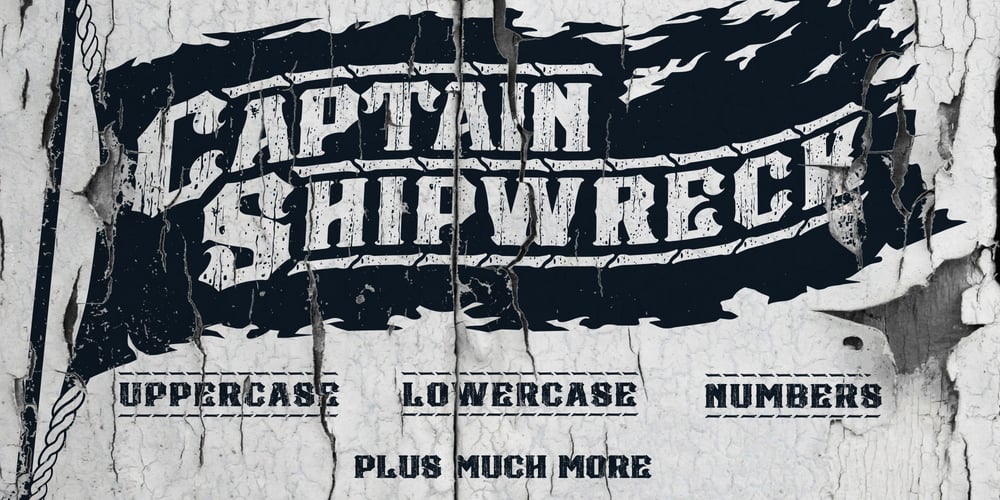
Captain Shipwreck Font Family was designed by Swinn Jonathan and published by Alphabet Agency. Captain Shipwreck contains 1 styles and family package options. Outlaw marauders! Stand in awe of the magnificent Captain Shipwreck! Works excellent in all caps, and has a great set of lowercase to match.Capture this treasure of the high seas for a steal of only $20